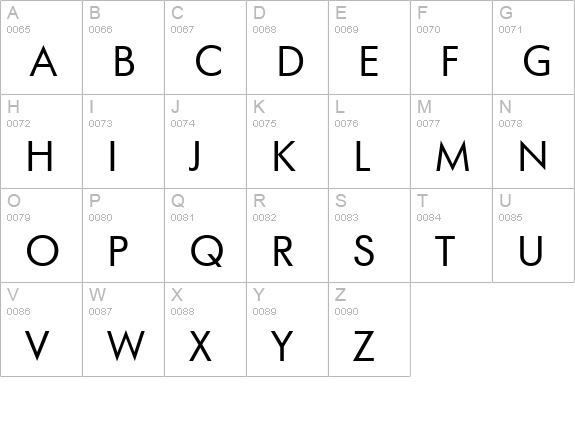
a_FuturaOrto Font Details
FuturaOrto is a modern and sleek font that exudes sophistication and elegance. With its clean lines and geometric shapes, this font is perfect for creating a contemporary and professional look in your designs. The versatility of FuturaOrto makes it suitable for a wide range of projects, from branding to editorial design. What sets FuturaOrto apart is not only its timeless design but also the fact that it is available for free. Yes, you heard that right! You can download FuturaOrto for free at FontsMarket.com and enhance your projects with this beautiful and stylish font. Whether you're working on a website, poster, logo, or any other design project, FuturaOrto is sure to make a statement and elevate your work to the next level. Download it now and unleash your creativity with this amazing font.